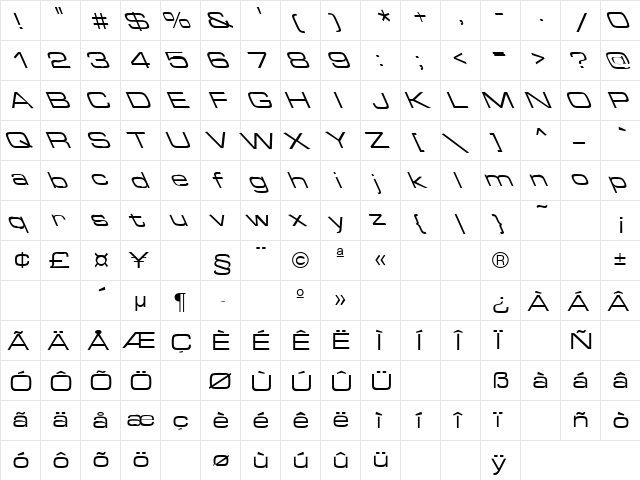
Green Mountain 6 Regular
Design Context for Green Mountain 6 Typeface
Green Mountain 6 offers clean, dependable letterforms without strong stylistic allegiance, making it a practical choice for designers who need flexibility.